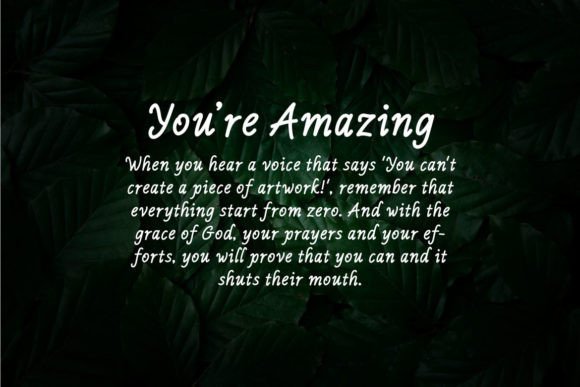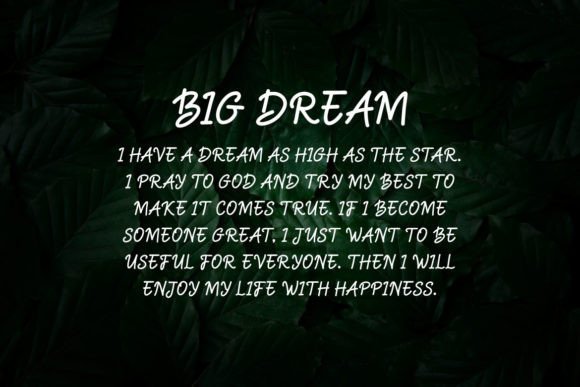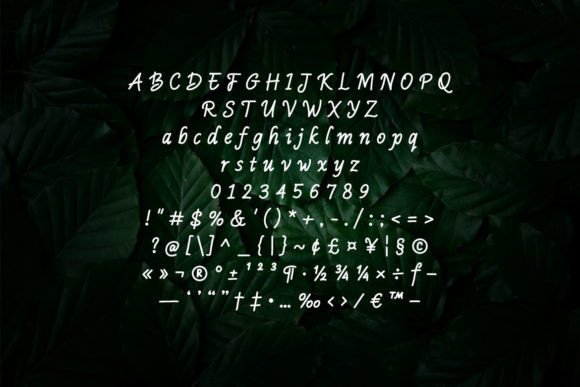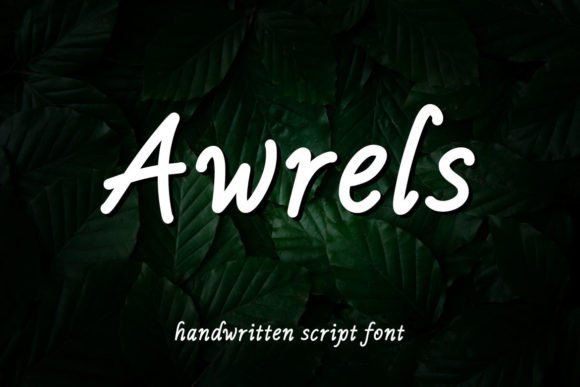
Introducing Awrels Font: A Simple yet Versatile Handwritten Script Font
Are you a designer, crafty person, or simply someone who loves to dabble in creative projects? Look no further! We’re excited to introduce Awrels, a beautiful and simple handwritten script font that’s perfect for a wide range of applications. In this article, we’ll dive into the world of Awrels, exploring its features, uses, and benefits.
What is Awrels Font?
Awrels is a modern, handwritten script font designed to add a personal touch to your creative projects. Its simplicity and elegance make it an excellent choice for various designs, from storytelling and educational materials to advertising and social media content.
Key Features of Awrels Font
• Handwritten Script: Awrels boasts a natural, handwritten look that’s both friendly and approachable.
• Simple and Elegant: The font’s clean lines and simple design make it easy to read and versatile for various applications.
• Highly Versatile: Use Awrels for storybooks, comic books, school projects, flyers, book titles, advertisements, social media content, logos, and more!
Uses of Awrels Font
Awrels is an incredibly versatile font that can be used in a multitude of projects. Here are some ideas to get you started:
• Storybooks and Comic Books: Add a personal touch to your storybooks and comic books with Awrels’ handwritten charm.
• School Projects: Make your school projects stand out with Awrels’ simple yet elegant design.
• Flyers and Brochures: Use Awrels to create eye-catching flyers and brochures for events, promotions, or announcements.
• Book Titles and Covers: Give your book titles and covers a professional, yet personal touch with Awrels.
• Advertisements: Awrels is perfect for creating ads that require a friendly, approachable tone.
• Social Media Content: Elevate your social media content with Awrels’ modern and clean design.
• Logos and Branding: Use Awrels to create unique and memorable logos and branding materials.
Benefits of Using Awrels Font
So, why choose Awrels for your creative projects? Here are some benefits you can expect:
• Ease of Use: Awrels is incredibly easy to use, even for those without extensive design experience.
• Flexibility: The font’s versatility means you can use it for a wide range of projects, from digital to print.
• Unique Look: Awrels’ handwritten design gives your projects a unique, personal touch that sets them apart.
• Time-Saving: With Awrels, you can create professional-looking designs in no time, saving you time and effort.
Tips for Using Awrels Font Effectively
To get the most out of Awrels, here are some tips to keep in mind:
• Experiment with Sizes: Awrels looks great in various sizes, so don’t be afraid to experiment to find the perfect fit for your project.
• Pair with Other Fonts: Combine Awrels with other fonts to create visually appealing and dynamic designs.
• Play with Colors: Awrels works well with a range of colors, so try out different hues to find the perfect match for your project.
Font Name Awrels Font
Author Mightyfire
In conclusion, Awrels is a simple yet versatile handwritten script font that’s perfect for designers, crafters, and creatives of all levels. Its ease of use, flexibility, and unique look make it an excellent choice for a wide range of projects. Whether you’re working on a storybook, comic book, school project, or advertisement, Awrels is sure to elevate your design and give it a personal touch. So why wait? Give Awrels a try today and discover the world of creative possibilities!